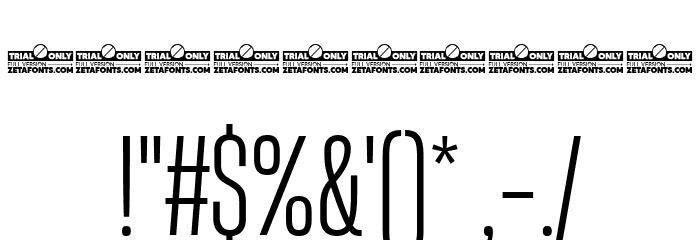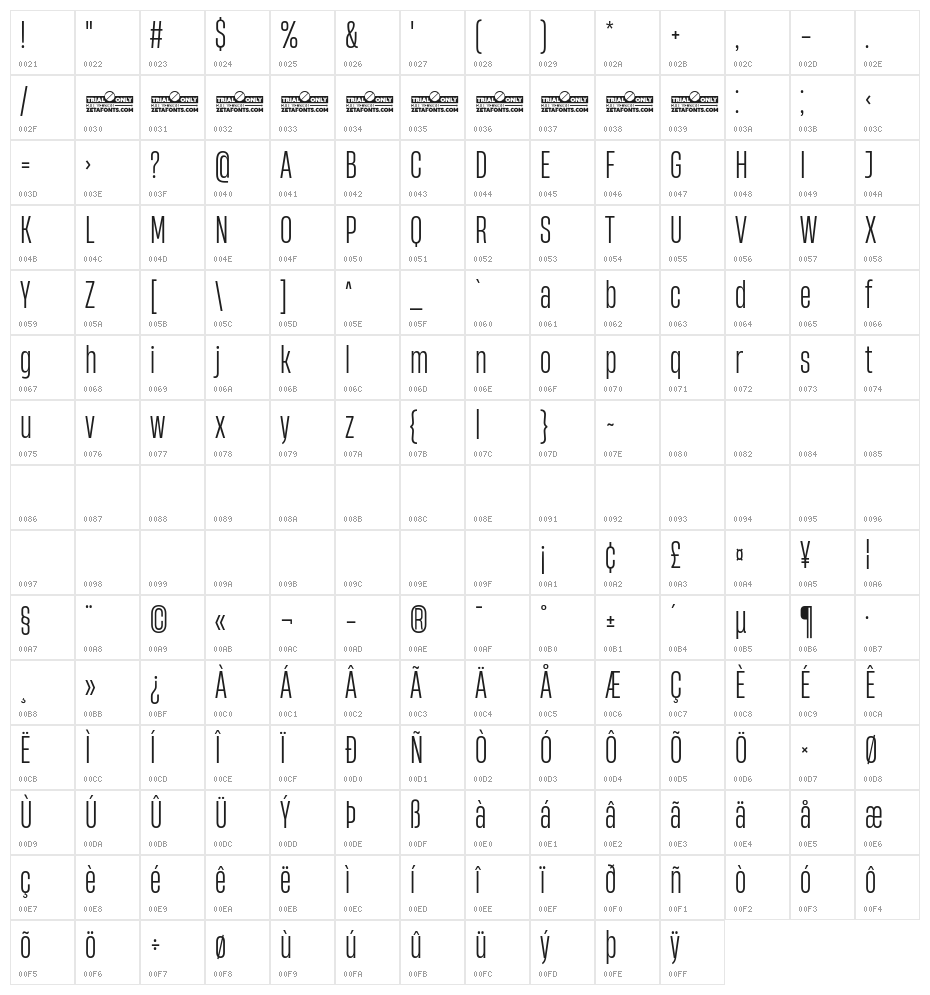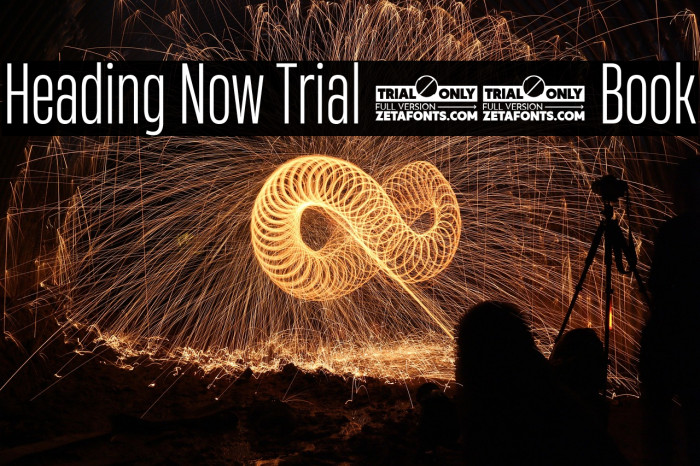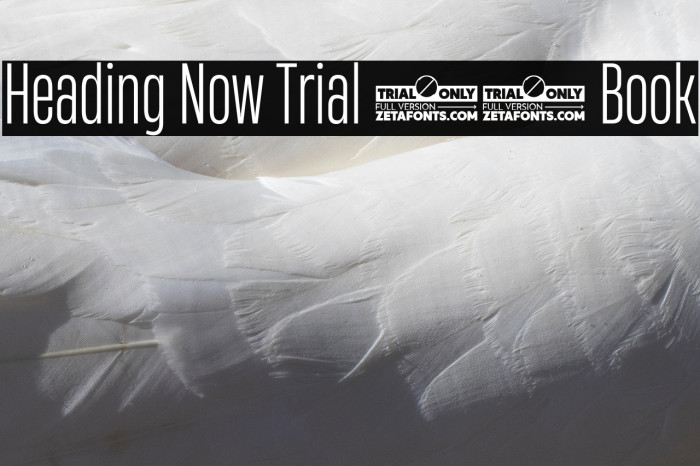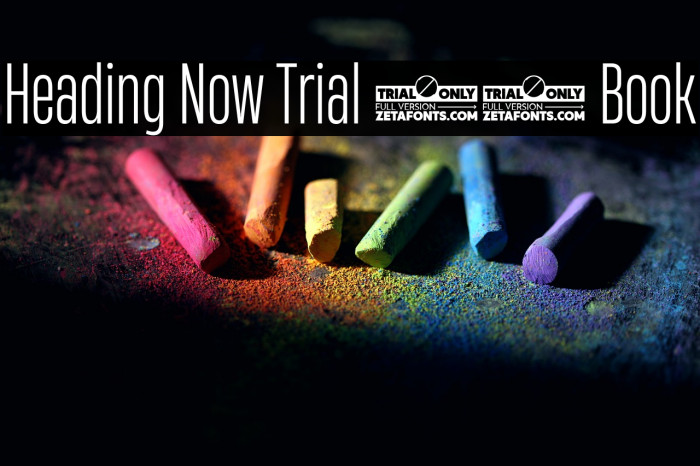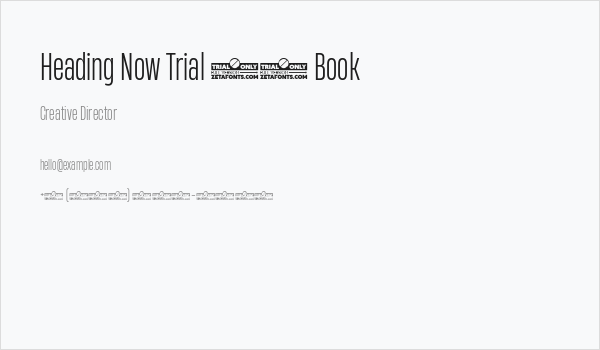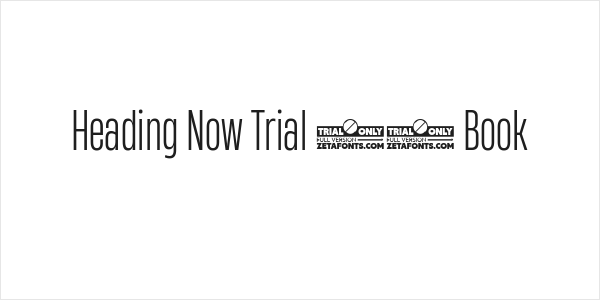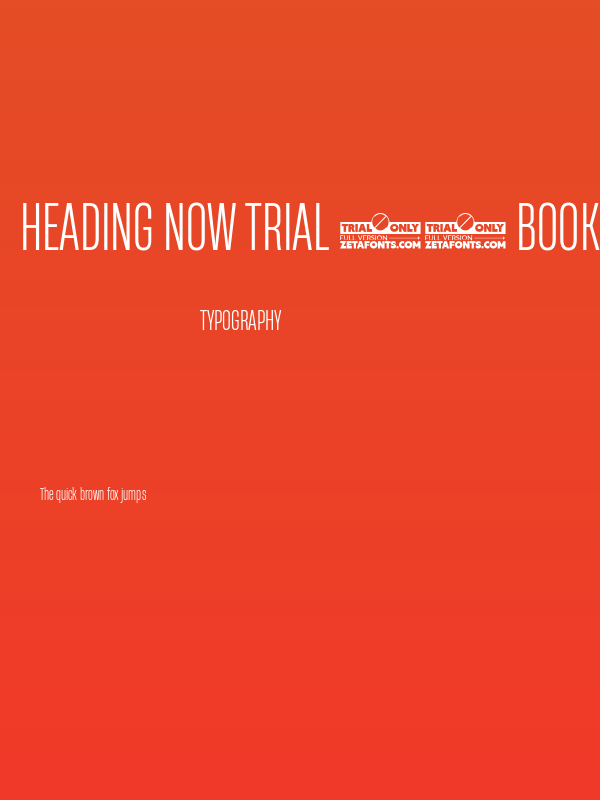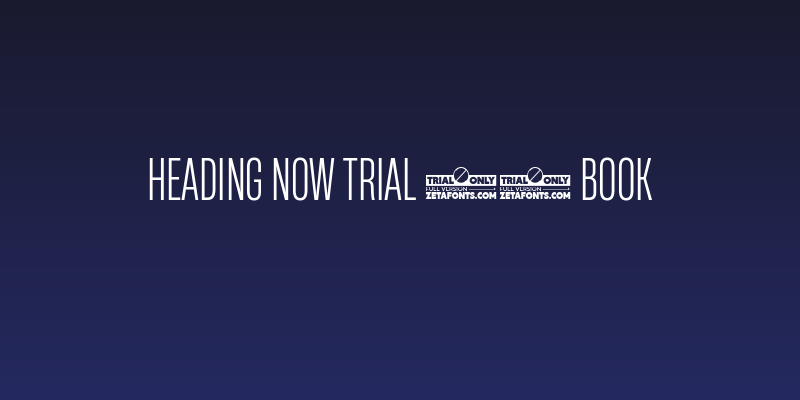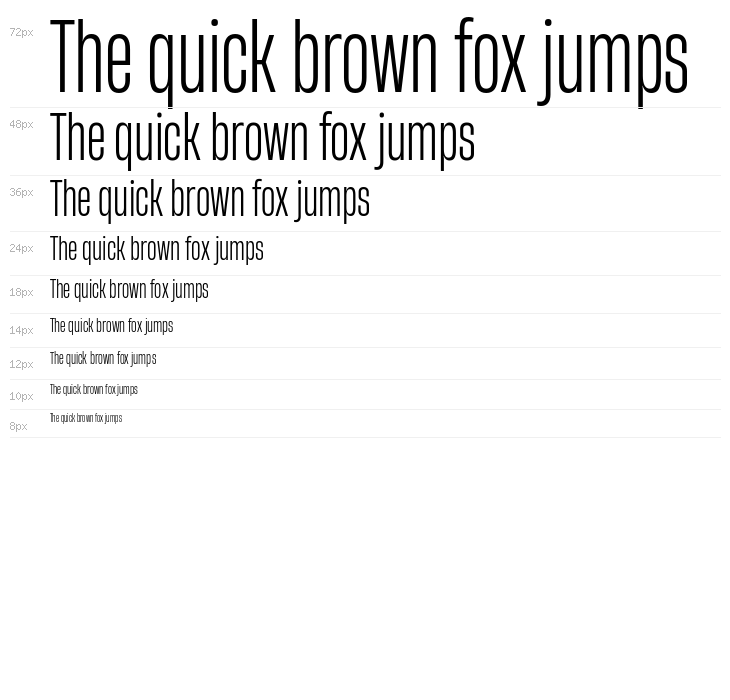
Heading Now Trial 33 Book Font
Heading Now Trial 33 Book Description
This font features a clean, modern sans-serif style with tall, narrow letterforms. The characters are evenly spaced, contributing to a sleek and professional appearance. The uppercase letters are particularly elongated, giving a sense of height and elegance. The lowercase letters maintain a consistent style, with rounded edges that soften the overall look. The numerals and special characters are designed to match the font's minimalist aesthetic, ensuring uniformity across all text elements. This font's simplicity and clarity make it highly versatile for various design applications.
| Proposed Projects | Ideal for branding, editorial design, web design, and advertising where a modern and sleek appearance is desired. |